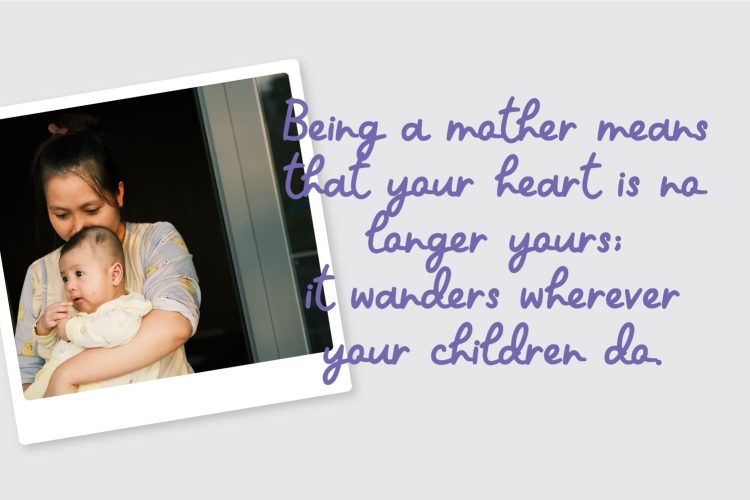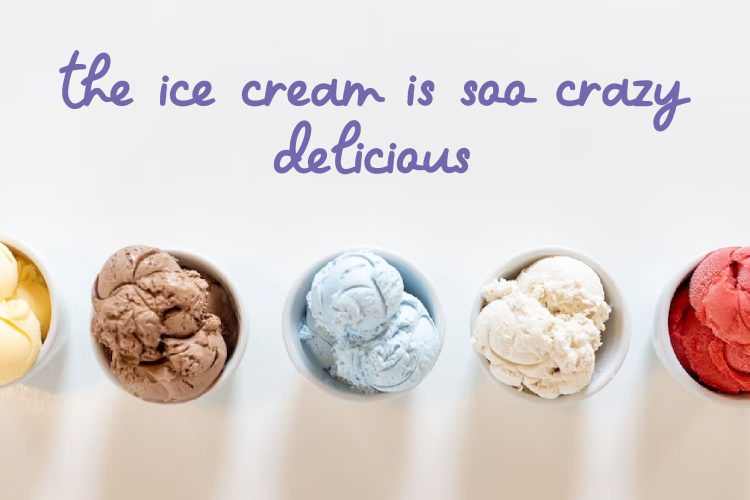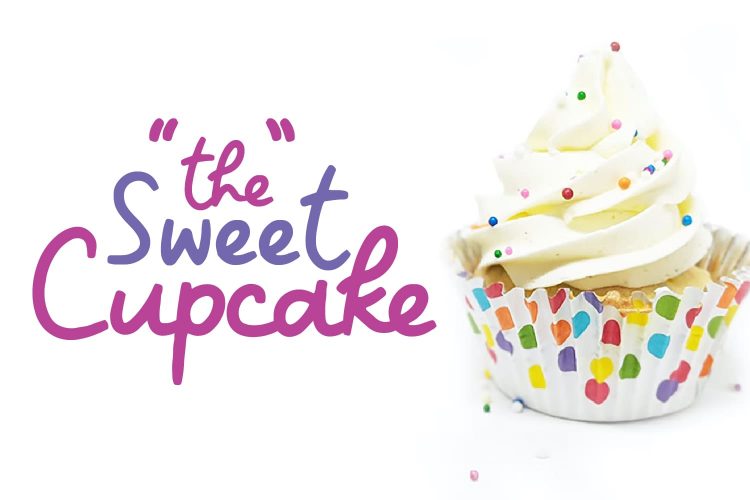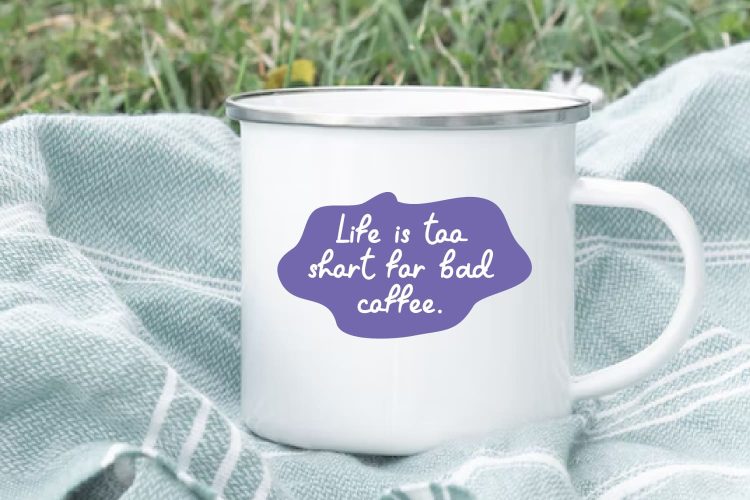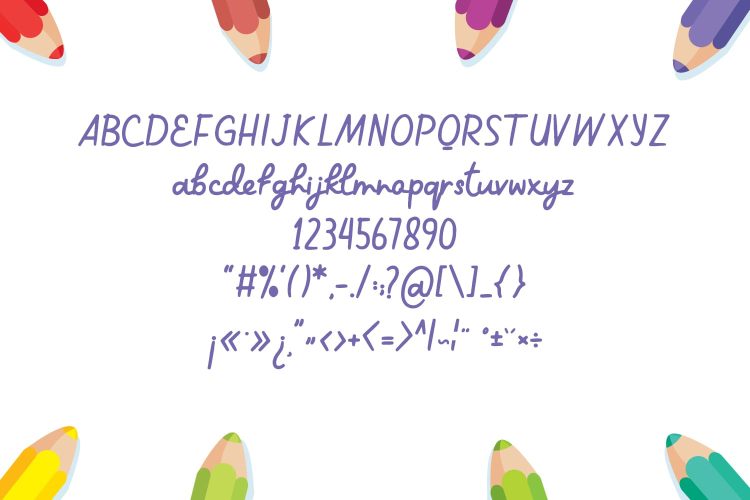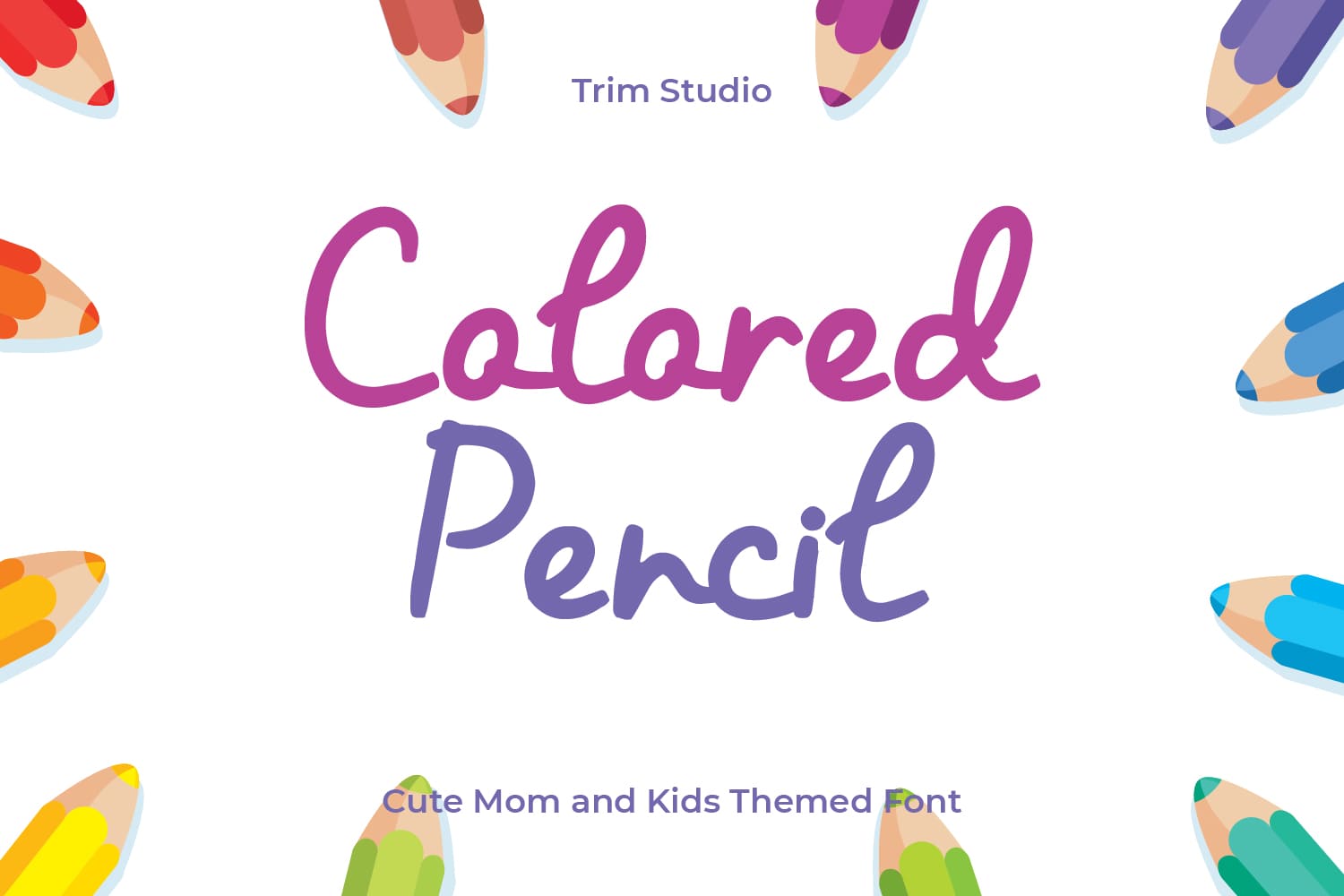
Colored Pencil font is a playful and whimsical script that combines rounded square letters with playful tails. The rounded square letters give the font a modern and contemporary look, while the tails add a touch of whimsy and personality. It’s perfect for designs aimed at children, with a playful and fun aesthetic that captures the imagination and adds a touch of joy to any project!
The font is also easy to read, with clear and legible characters that are suitable for both headings and body text. Overall, this font is a versatile and fun choice for designers looking to add a playful touch to their projects. It contains All Standard glyphs and punctuations.